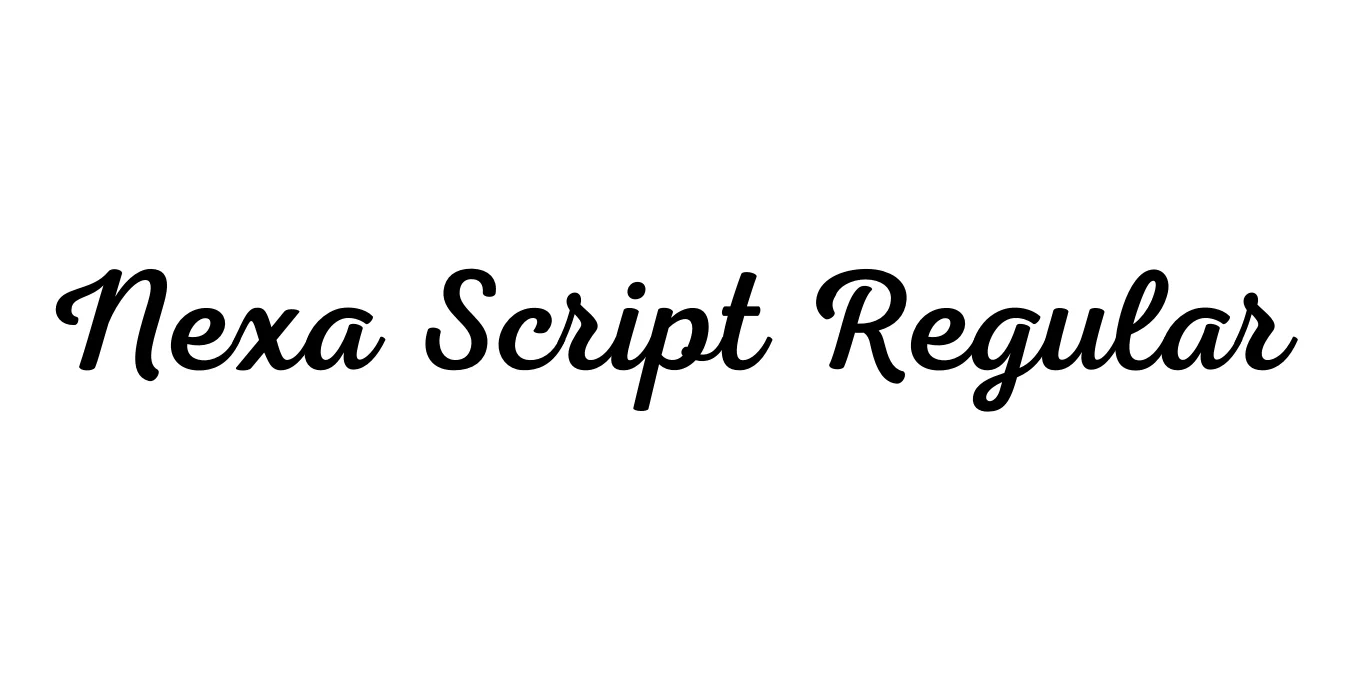
Nexa Script Regular
Designed by Svetoslav Simov
Nexa Script Regular is a contemporary script typeface that stands out for its cleanliness and fluidity. Developed by Svetoslav Simov and published by Fontfabric, it was designed to be a versatile companion to the wildly successful Nexa and Nexa Slab families. Unlike many traditional script fonts that favor ornate flourishes, Nexa Script focuses on a balanced, rhythmic structure that ensures high legibility across various media formats.
This typeface is particularly noted for its wide range of weights and styles, though the Regular version provides a perfect middle ground for everyday design needs. Its modern aesthetic makes it ideal for digital interfaces and print graphics alike, bridging the gap between casual handwriting and professional typographic design. It has become a staple for designers looking for a script that feels both approachable and sophisticated.
Nexa Script Regular Best Uses
Excellent for creating memorable logos and identity systems.
Great for eye-catching quotes and engaging Instagram graphics.
Adds a personal, handwritten touch to website headers and landing pages.
Works well for product labels that require a hand-crafted, premium feel.
Highly effective for headlines in posters and digital banners.